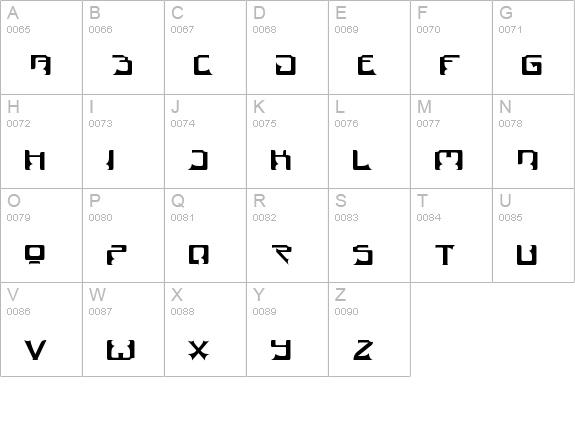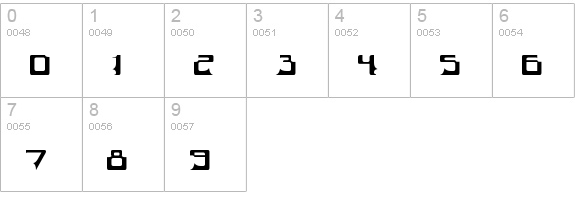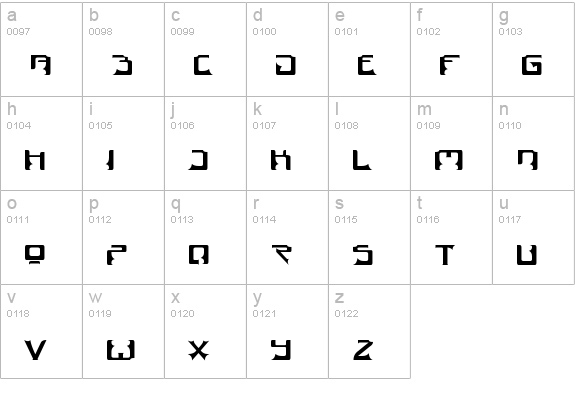
Dogma font is a versatile and stylish typeface that exudes a sense of modernity and sophistication. With its sleek lines and geometric shapes, this font is perfect for creating clean and contemporary designs. Its bold and edgy aesthetic makes it ideal for a wide range of projects, from branding to editorial design. What sets Dogma font apart is not only its striking appearance but also the fact that it is available for free download at FontsMarket.com. This means that you can easily access this high-quality font without any cost, making it a valuable addition to your design toolkit. Whether you're looking to make a statement with your typography or simply want to add a touch of elegance to your project, Dogma font is sure to impress. Download it today and elevate your designs with this exceptional typeface.